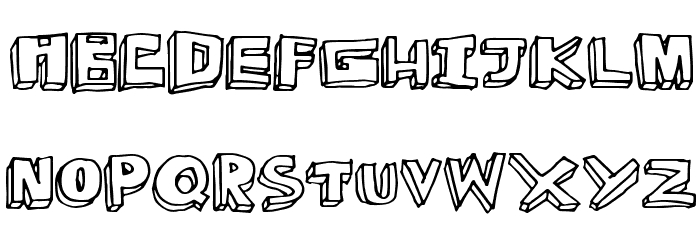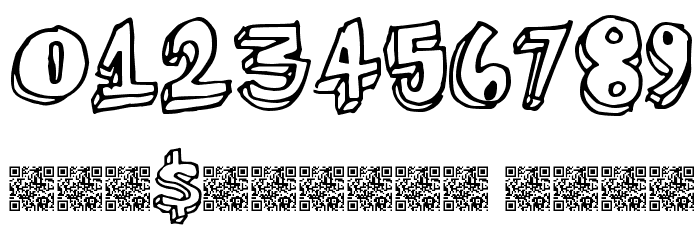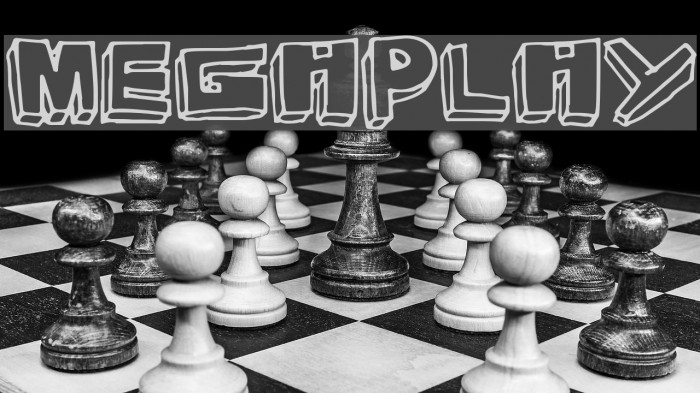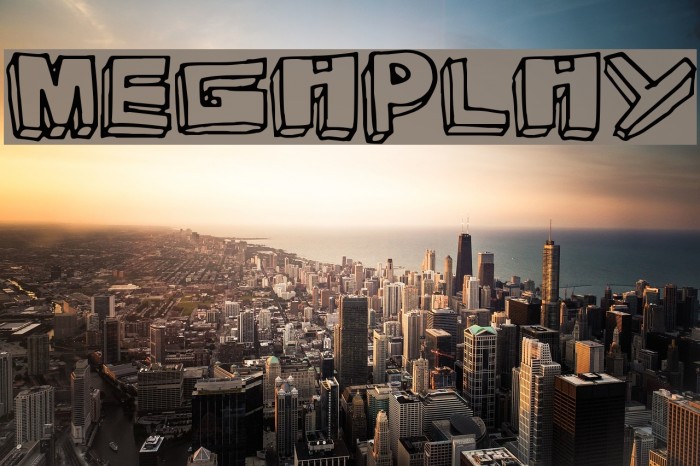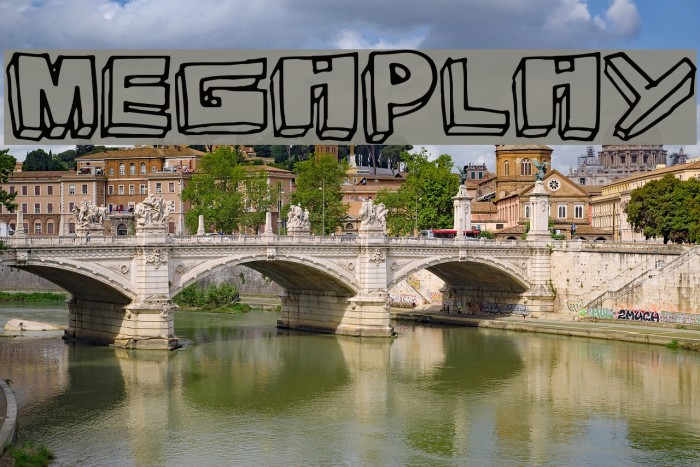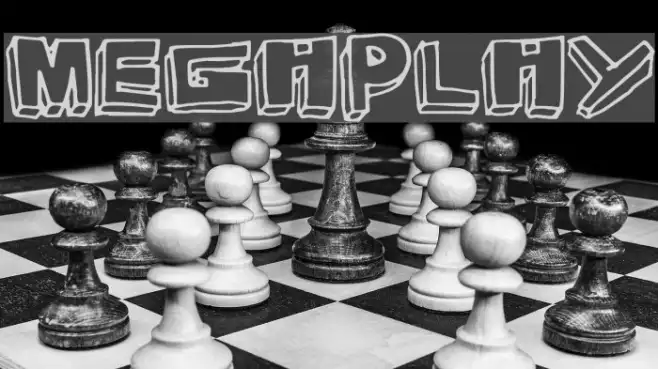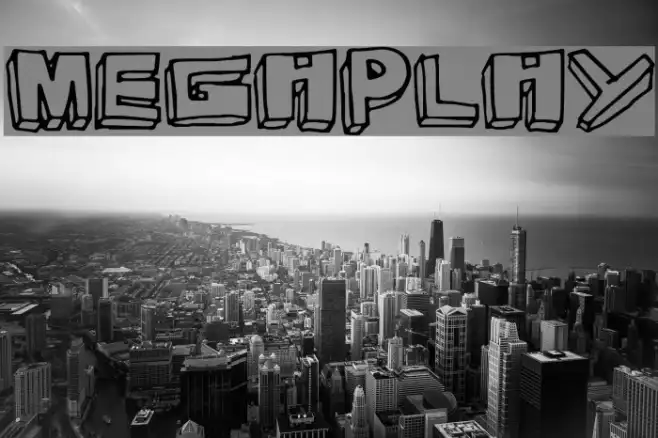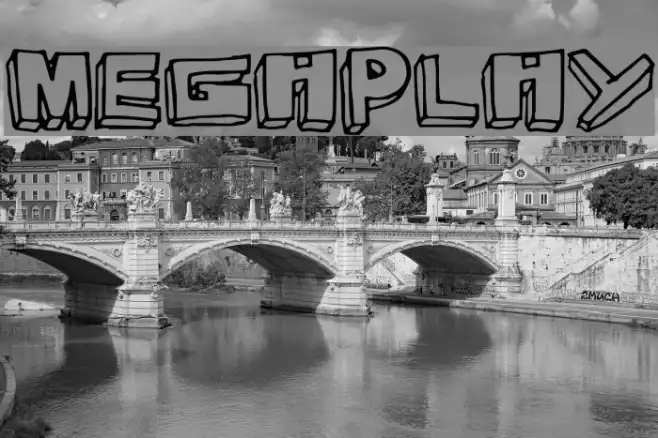
MegaPlay Font
This font features a bold, playful design with a three-dimensional, cartoonish style. Each character is outlined with a thick black line, giving it a hand-drawn appearance. The letters and numbers have a dynamic, energetic feel, with exaggerated curves and angles that create a sense of movement. The overall look is informal and fun, making it ideal for creative projects that require a touch of whimsy. The font's unique style is perfect for capturing attention and conveying a sense of excitement and creativity.
A bold, playful, and cartoonish font with a three-dimensional, hand-drawn style.
- Proposed Projects: Ideal for children's books, comic strips, playful branding, and eye-catching posters.